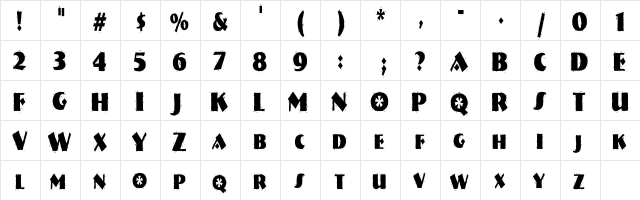
NatividadCondensed Regular Font Preview
NatividadCondensed Regular
NatividadCondensed Regular Font Details
Design Context for NatividadCondensed Typeface
NatividadCondensed is a composed and adaptable typeface that performs quietly and consistently across a wide range of design contexts. The condensed width makes it efficient for tight spaces without sacrificing legibility.